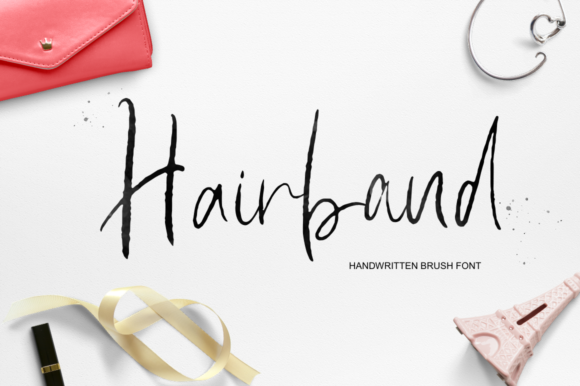
Have you ever stared at a blank page, a blank canvas, or a blank screen, waiting for that perfect spark of inspiration to strike? It’s a feeling we’ve all been there, and it’s a moment that can make or break a project. But what if I told you that the key to unlocking your creativity lies in a single, swooping line?
Enter the Hairband Font, a natural handwritten brush font that’s as versatile as it is beautiful. Designed for branding, decoration, and so much more, this font is the perfect addition to any project. From wedding invitations to book covers, and from marketing materials to social media graphics, the Hairband Font is the ideal choice for designers looking to add a touch of elegance and sophistication to their work.
Hairband Font Key Features
- Font Family: Hairband is a display font, available in several styles including Hairband Regular, Hairband Italic, Hairband Bold, and Hairband Bold Italic.
- Unique Characteristics: Hairband Font features a distinctive, hand-drawn aesthetic with bold lines, rounded edges, and a playful feel, making it ideal for creative and attention-grabbing applications.
Hairband Font Review
Overall, I’d say the Hairband Font is a decent addition to any designer’s toolkit. ✨ One thing I really like about it is its playful, energetic vibe – it’s perfect for creative projects or brands that want to stand out from the crowd. The font is also highly legible, making it suitable for body text as well as headlines.
- ✨ Highly legible and clear, even at smaller sizes
- ✨ Great for creative projects or brands with a bold personality
- ✨ Supports a range of languages and characters
However, there are a few limitations to keep in mind. ⚠️ For one, the font is not ideal for formal or professional applications – it’s just too playful and whimsical. Additionally, some users may find the font’s irregularities and flourishes distracting, particularly in larger blocks of text.
- ⚠️ Not suitable for formal or professional applications
- ⚠️ Irregularities and flourishes may be distracting in large blocks of text
Overall, I’d give the Hairband Font 3.5 out of 5 stars. While it’s not perfect, it’s a fun and versatile font that can add some much-needed personality to a design project. Just be sure to use it judiciously and in the right context.
The Hairband font is commonly used in music and entertainment designs, such as concert posters, album covers, and band logos. It is also used in fashion and lifestyle designs, such as clothing labels and advertising materials.
Alternatives to Hairband Font for Designers
Great Vibes Font is a modern, elegant script font that is perfect for adding a touch of sophistication to designs. It is ideal for use in wedding invitations, branding, and other creative projects where a high-end feel is desired.
Great Vibes Font compares to Hairband Font in that it also has a script style, but it has a more refined and polished look. Hairband Font has a more casual, relaxed feel, while Great Vibes Font is more formal and elegant.